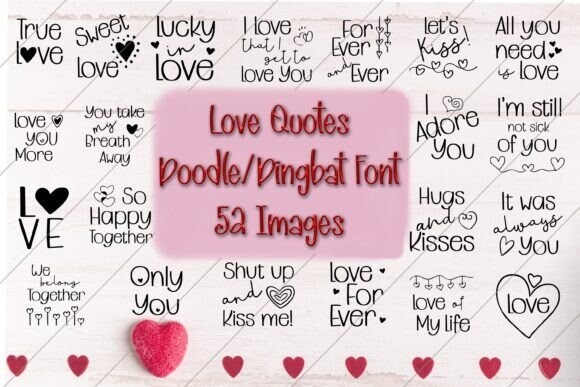
Love Quotes Font
Designer: Mary Kay's Magic
Love Quotes Font. This doodle/dingbat font contains 52 images containing love quotes, enough to fit all of your Valentine’s or romantic projects. This font works like any other font. Simply type the capital or small letter on the keyboard, and you will get one of the images instead of the letter.
Color the images as you would any letter, add a background image to them, or use plain. Use them for greeting cards, postcards, scrapbooks, planners, journals, social media posts, invitations, and posters, or combine them into your own unique clipart image.